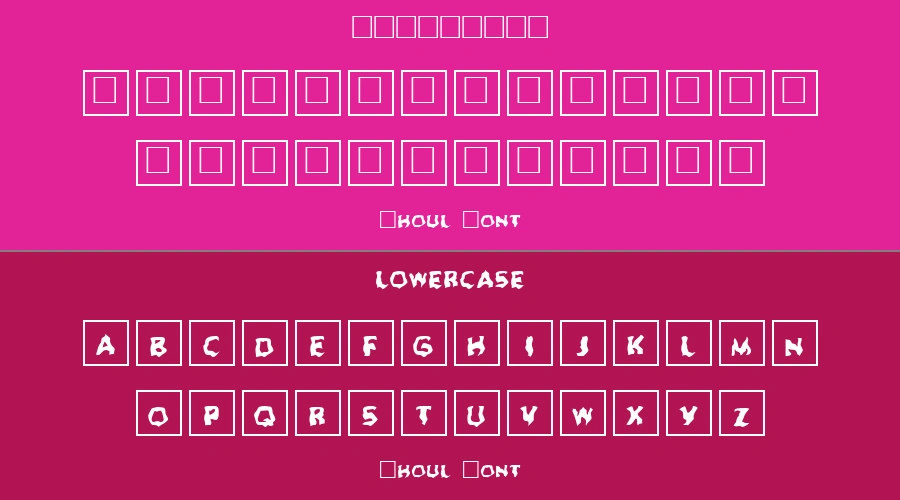
About Ghoul Font
Ghoul Font embodies typographic excellence through its masterful combination of structural clarity and technical precision. Created for newspaper text, this typeface delivers exceptional precision and market confidence across all applications. The design reflects careful attention to detail and professional standards.
Advanced capabilities include distinctive modular forms and versatile word-end alternates, giving designers creative control. When used in running text, Ghoul Font exhibits remarkable numerical alignment. The harmonious balance between contrast level and personality sets this typeface apart.
Ghoul Font |